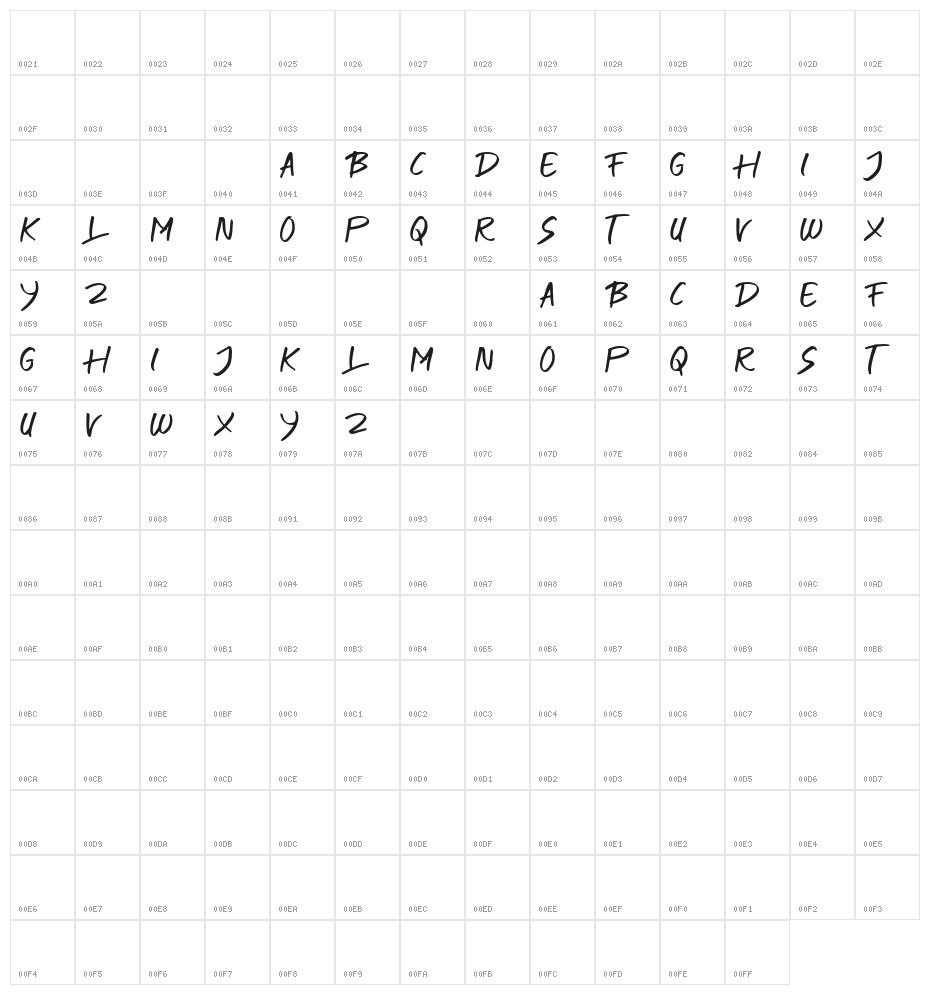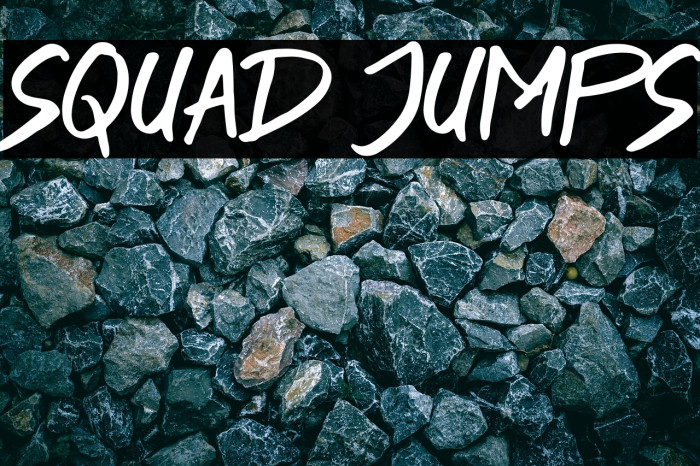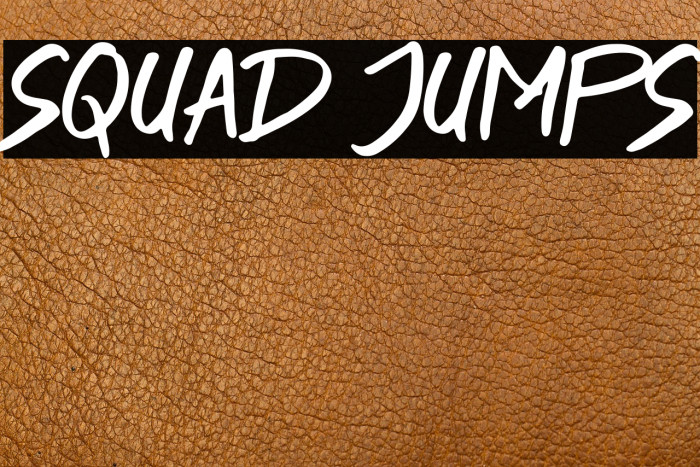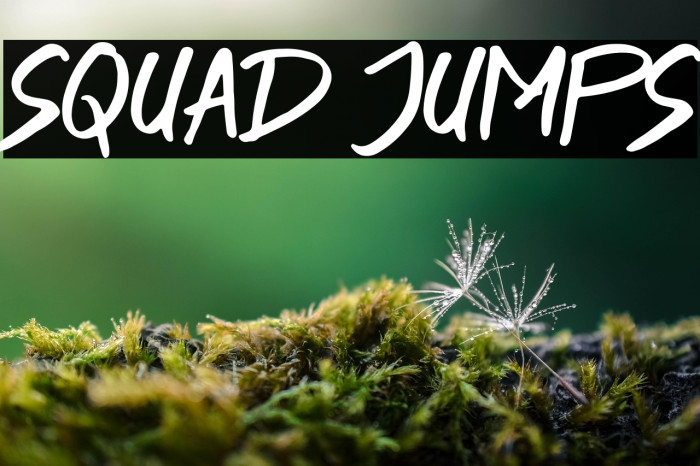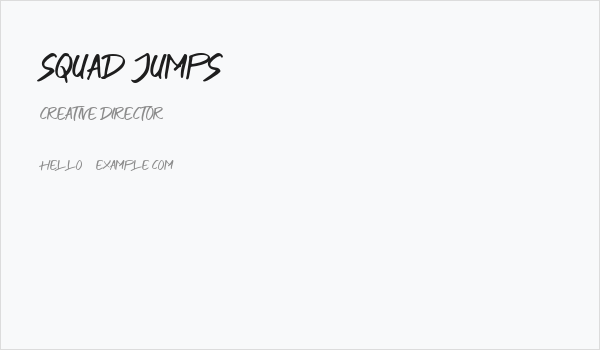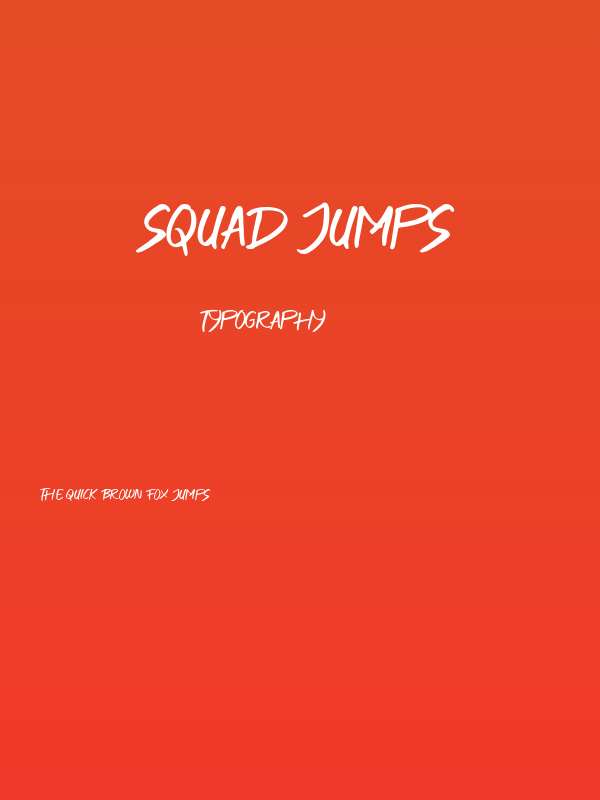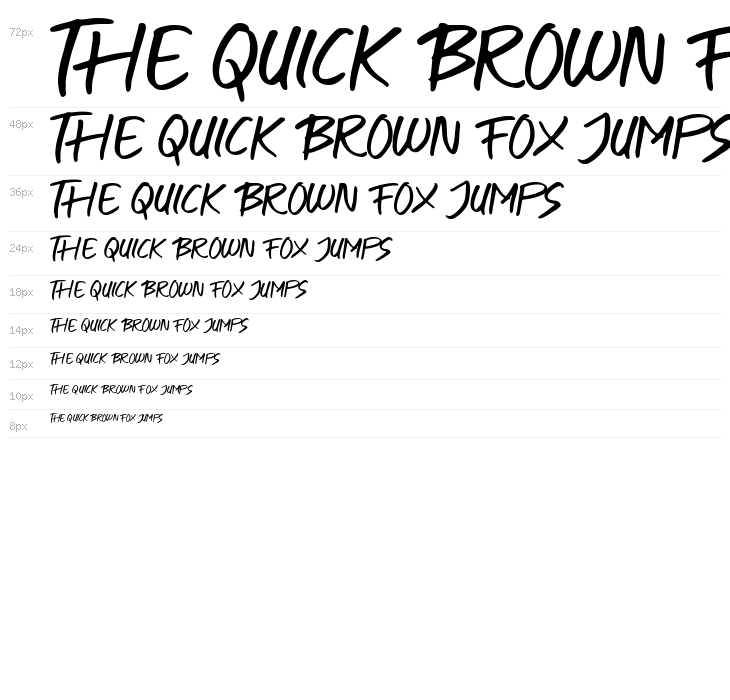
SQUAD JUMPS Font
SQUAD JUMPS Description
This font exhibits a dynamic and energetic handwritten style, characterized by its bold and fluid strokes. The letters are slightly slanted, giving a sense of motion and spontaneity. The uppercase letters are prominent and expressive, while the lowercase letters maintain a consistent flow. The overall appearance is casual yet confident, making it suitable for projects that require a personal touch. The font's playful nature is enhanced by its slightly irregular character shapes, adding to its charm and uniqueness.